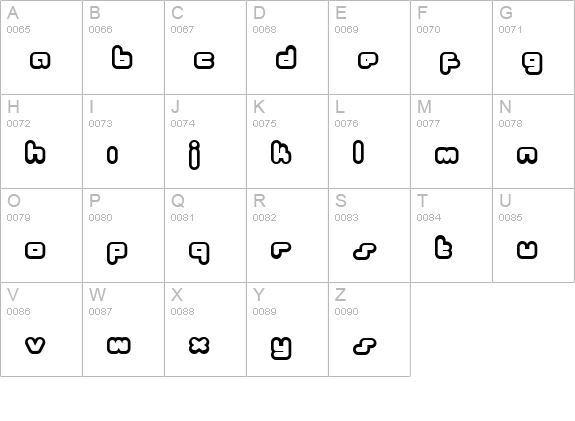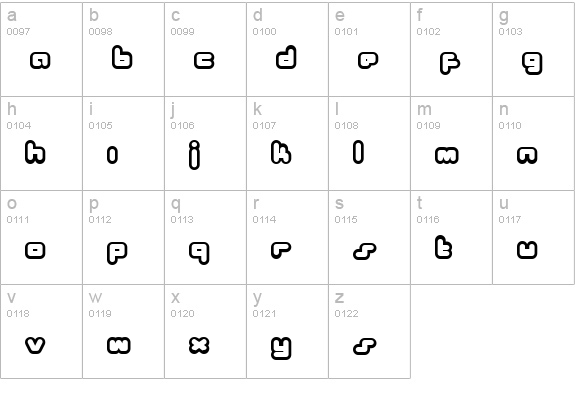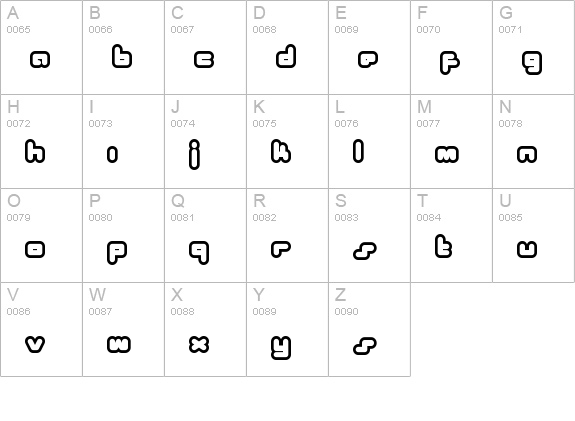
Bukkake Font Details
Introducing Bukkake font, a modern and stylish typeface that is sure to make your designs stand out. With its sleek lines and elegant curves, Bukkake font adds a touch of sophistication to any project. What makes Bukkake font even more appealing is that it is available for free download at FontsMarket.com. Yes, you read that right - this stunning font can be yours at no cost! Whether you're working on a branding project, website design, or any other creative endeavor, Bukkake font is the perfect choice to elevate your work to the next level. Don't miss out on this opportunity to enhance your designs with the beauty and versatility of Bukkake font. Download it for free today at FontsMarket.com and let your creativity shine!